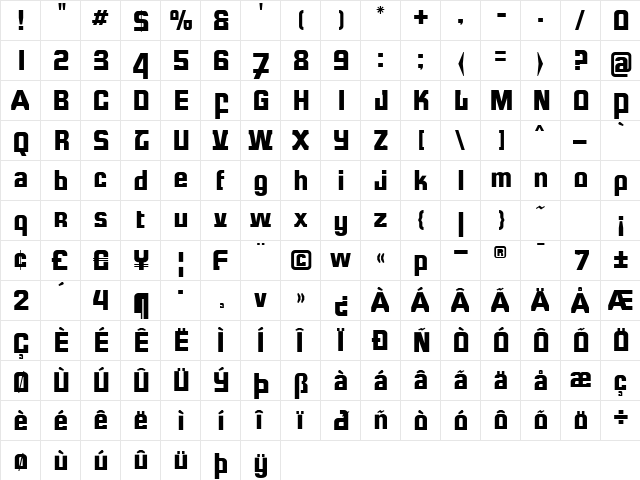
Formula R
Design Context for Formula Typeface
Formula is a composed and adaptable typeface that performs quietly and consistently across a wide range of design contexts.